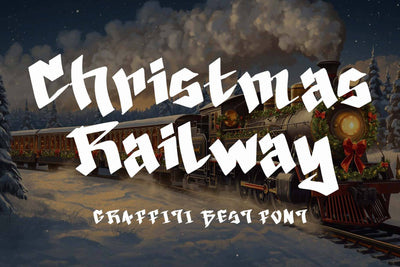
Christmas Railway
"Christmas Railway" is an elegant and modern graffiti font. It features uppercase and lowercase letters, numerals, punctuations, and multilingual support. It's perfect for Christmas, winter, holidays, graffiti, street fonts, wall fonts, stickers, prints, banners, tattoos, logos, holidays, vacations, spring, YouTube, social media, Thanksgiving, and more.